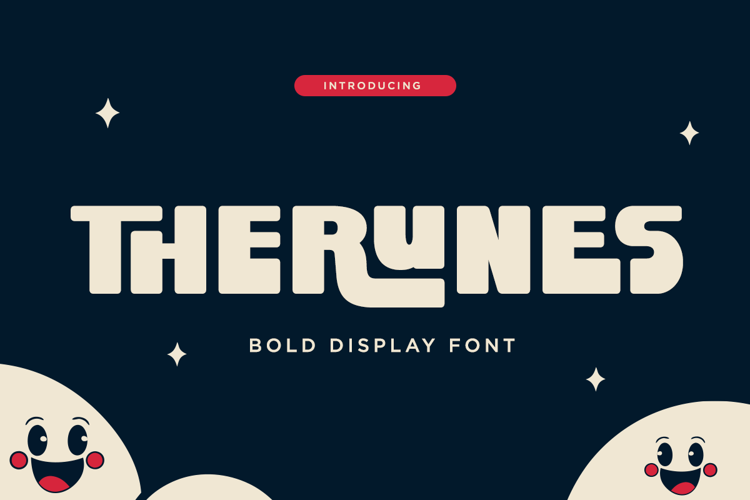
Therunes Font
Say hello to Therunes, a bold and playful display font that brings a fun twist to retro-futuristic type! Perfectly crafted for standout branding, eye-catching headlines, and quirky design projects. Therunes combines geometric shapes with unique ligatures for a style that’s both nostalgic and modern.
– Stylistic Ligature ( uppercase and Lowercase )
– Multilingual
– Number, and Symbol